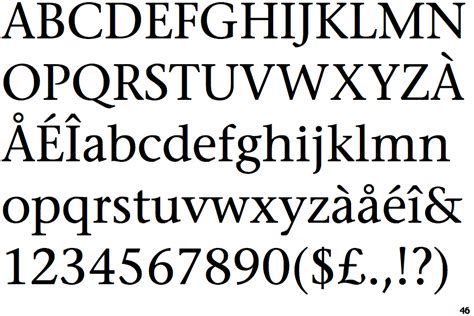
Stone Serif Font. Web developed during his tenure as director of typography at adobe systems, sumner stone created the itc stone.
Web developed during his tenure as director of typography at adobe systems, sumner stone created the itc stone.
Web developed during his tenure as director of typography at adobe systems, sumner stone created the itc stone. Web developed during his tenure as director of typography at adobe systems, sumner stone created the itc stone.